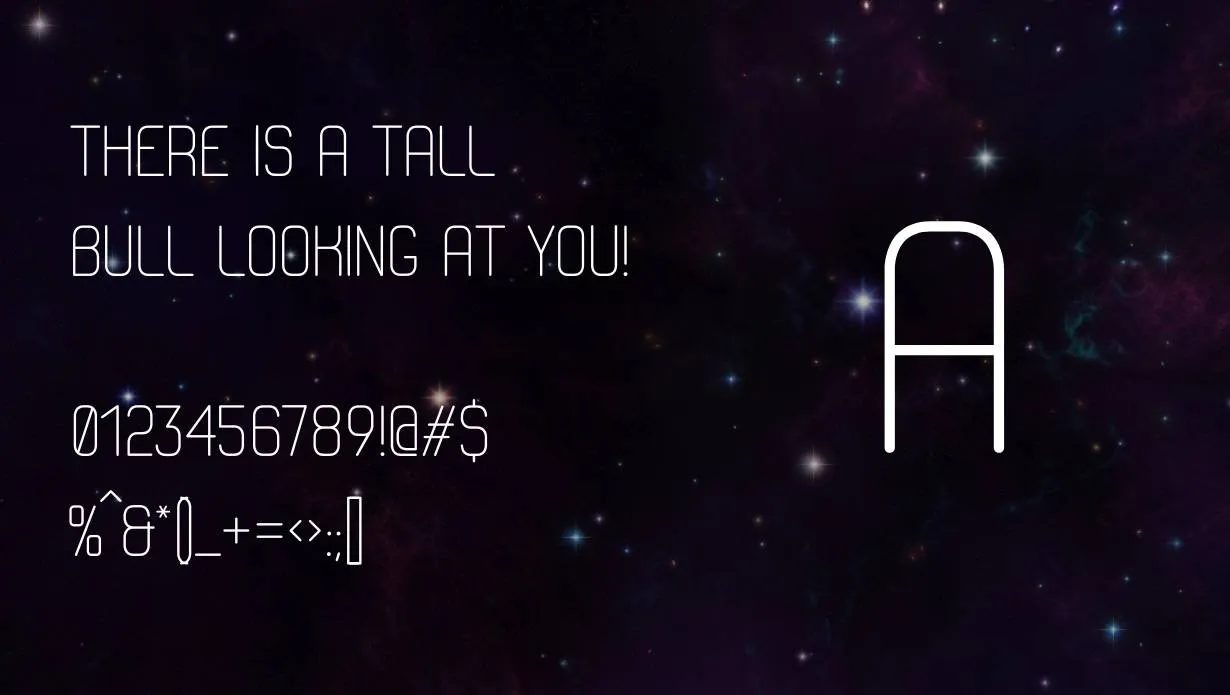
AC Line Font features a clean and simple design, making it suitable for various design applications. Whether used in editorial layouts or web design, this font’s versatility is enhanced by its support for file formats such as TTF and OTF.
- AC Line Thin
- AC Line Light
- AC Line Regular
| Name | AC Line Font |
| Designer | Anna Churkina |